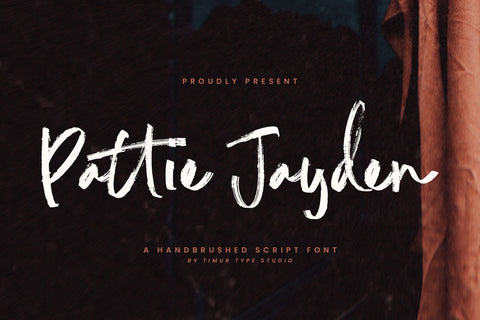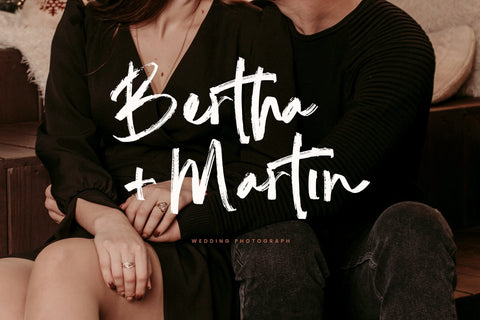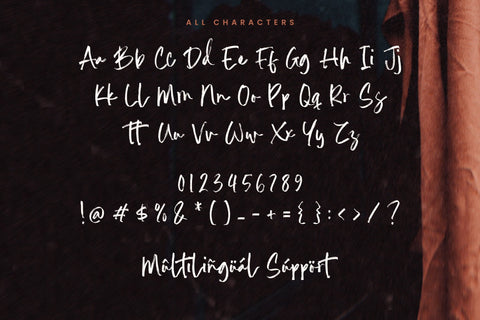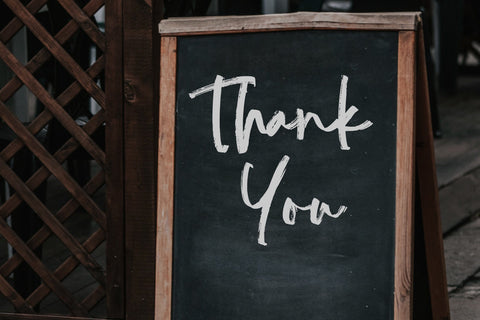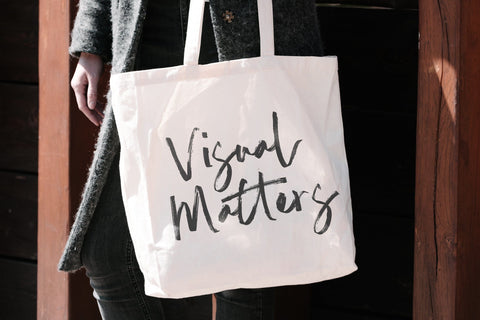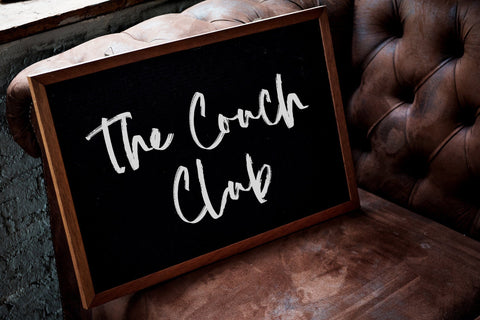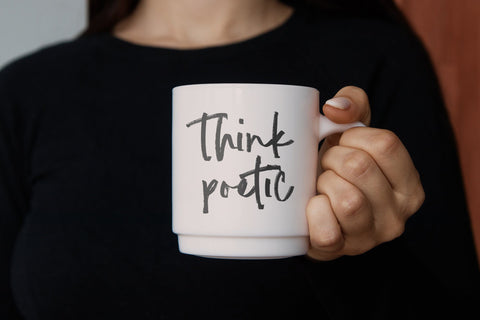
Pattie Jayden - Handbrushed Script Font
Pattie Jayden is a Handbrushed Script Font
This font is a graceful handbrushed script font that combines fluid strokes with a touch of playful elegance. Its natural, artistic flow and contemporary charm make it perfect, handwritten feel to any design whether for branding, invitations, or creative projects. With its smooth curves and stylish flair, Pattie Jayden effortlessly balances sophistication with a relaxed, approachable vibe.
Pattie Jayden Font also supports multilingualism